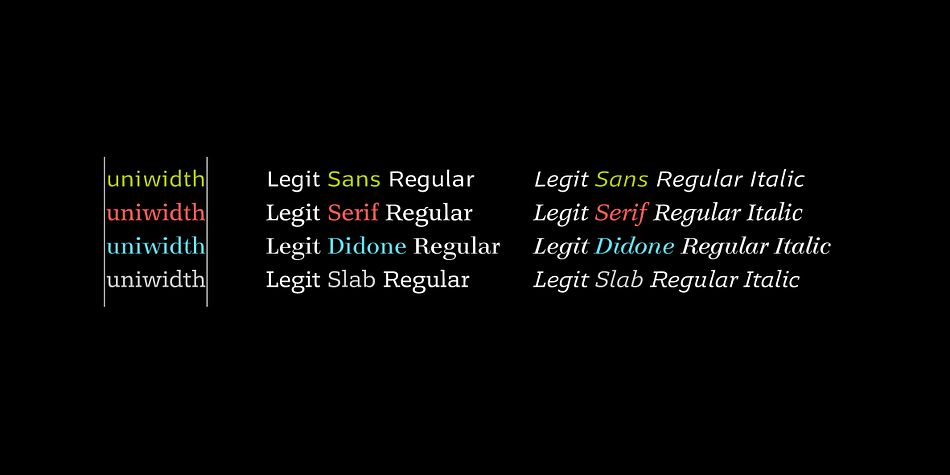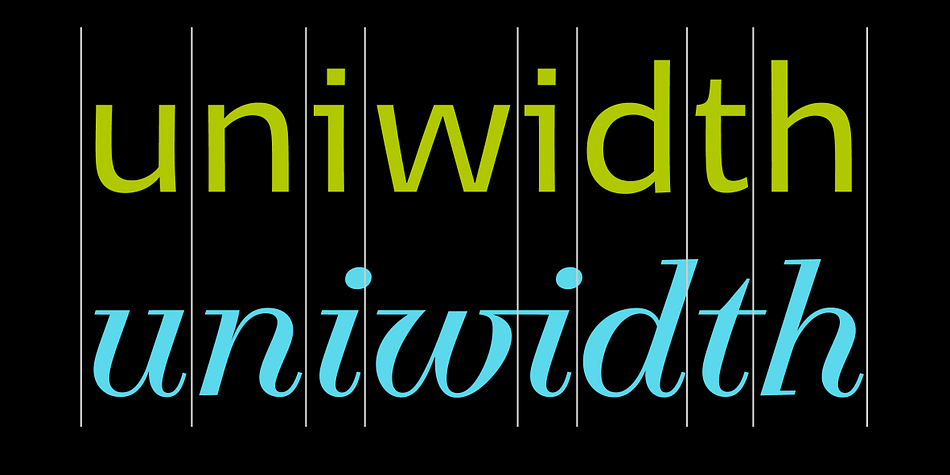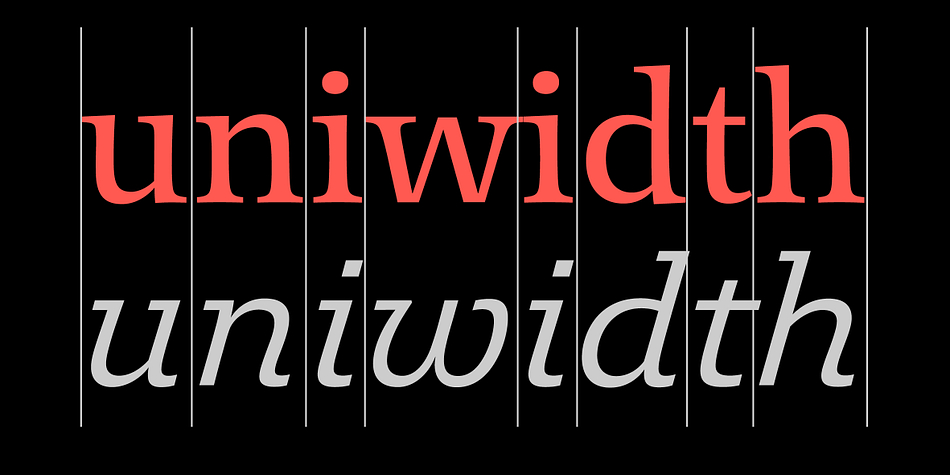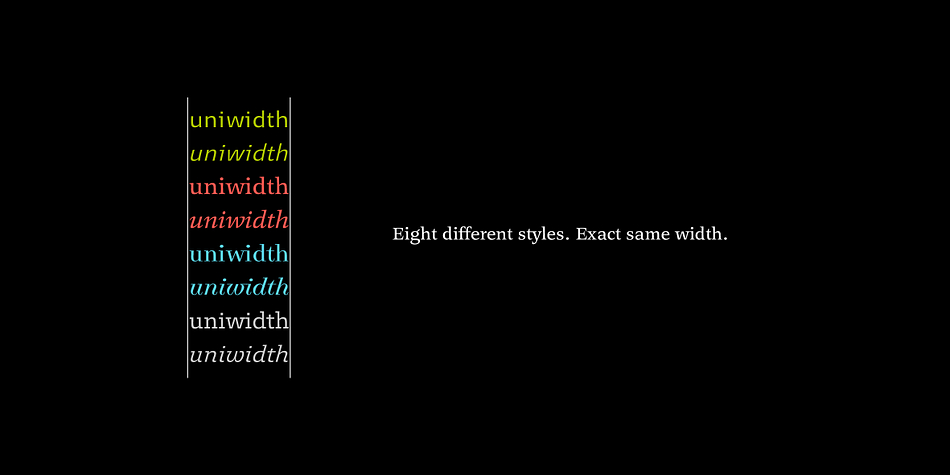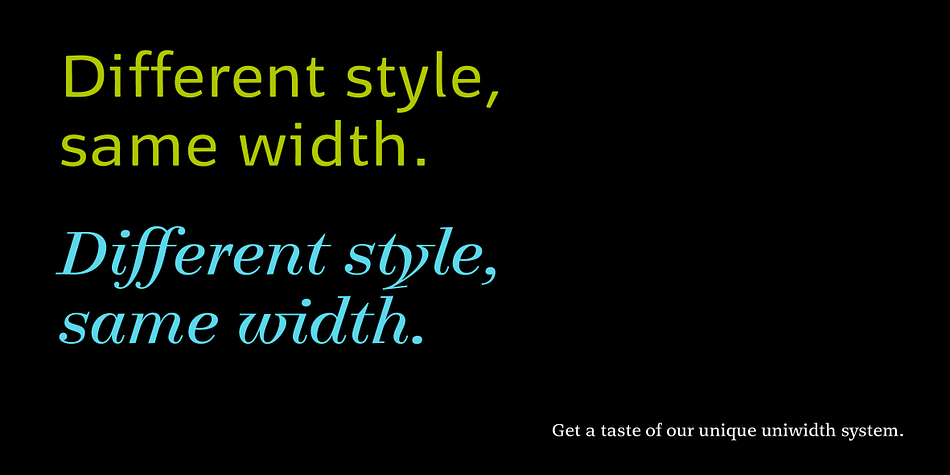
Legit Superfamily Starter is a sans serif, serif and slab serif font collection published by Finaltype.
This Starter Collection is a subset of our massive Legit Superfamily. It features eight unique text fonts that share the same metrics. Legit features both optimal readability in small sizes as well as elegant aesthetics in display use. The sophisticated uniwidth system is the result of 30+ years of experience by Prof. Hans R. Heitmann. All styles are 100% compatible in width and remain swappable without altering the layout.
Our Finaltype spacing provides optimal type color and readability, even in all-caps typesetting. The typeface comes with a set of ligatures and stylistic alternates as well as strong and clear accents to support more than 36 languages.